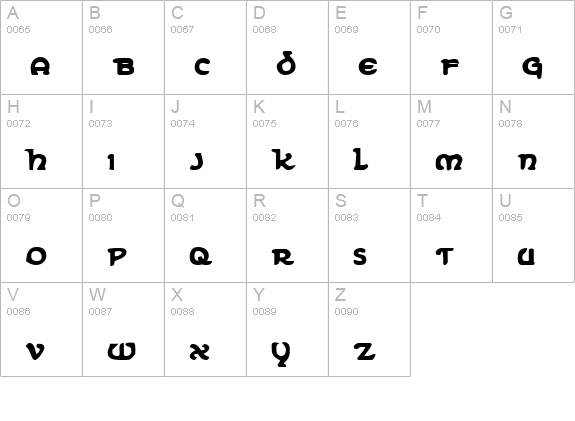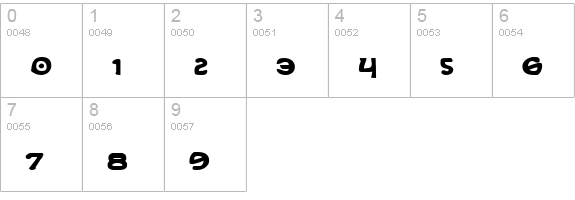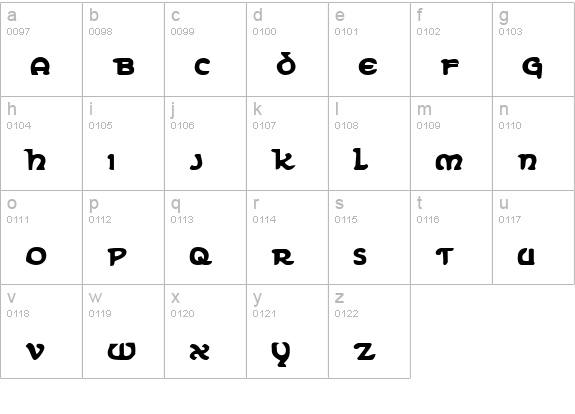
Erin Go Bragh Bold is a strong, high-contrast variant in the Erin typeface family \xE2\x80\x94 well suited to headlines, attention-grabbing titles, and strong calls-to-action.
Erin Go Bragh Bold font is a striking and dynamic typeface that exudes confidence and energy. With its bold and strong letterforms, this font commands attention and makes a powerful statement in any design project. Whether you're creating a headline, logo, poster, or branding materials, Erin Go Bragh Bold font will ensure your message stands out and leaves a lasting impression. The best part? Erin Go Bragh Bold font is available for free download at FontsMarket.com. This means you can easily access this high-quality font and use it in your personal and commercial projects without any cost. Don't miss out on the opportunity to enhance your designs with the bold and impactful Erin Go Bragh Bold font - download it now and take your creativity to the next level!